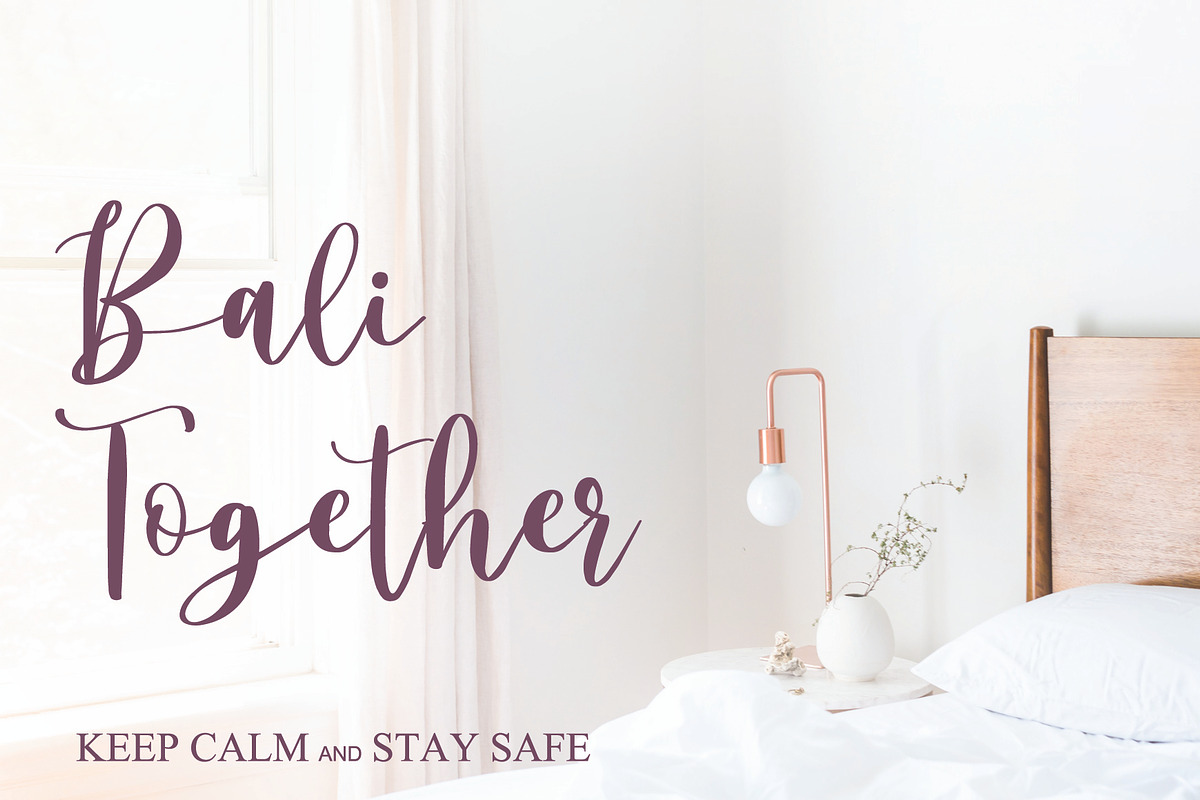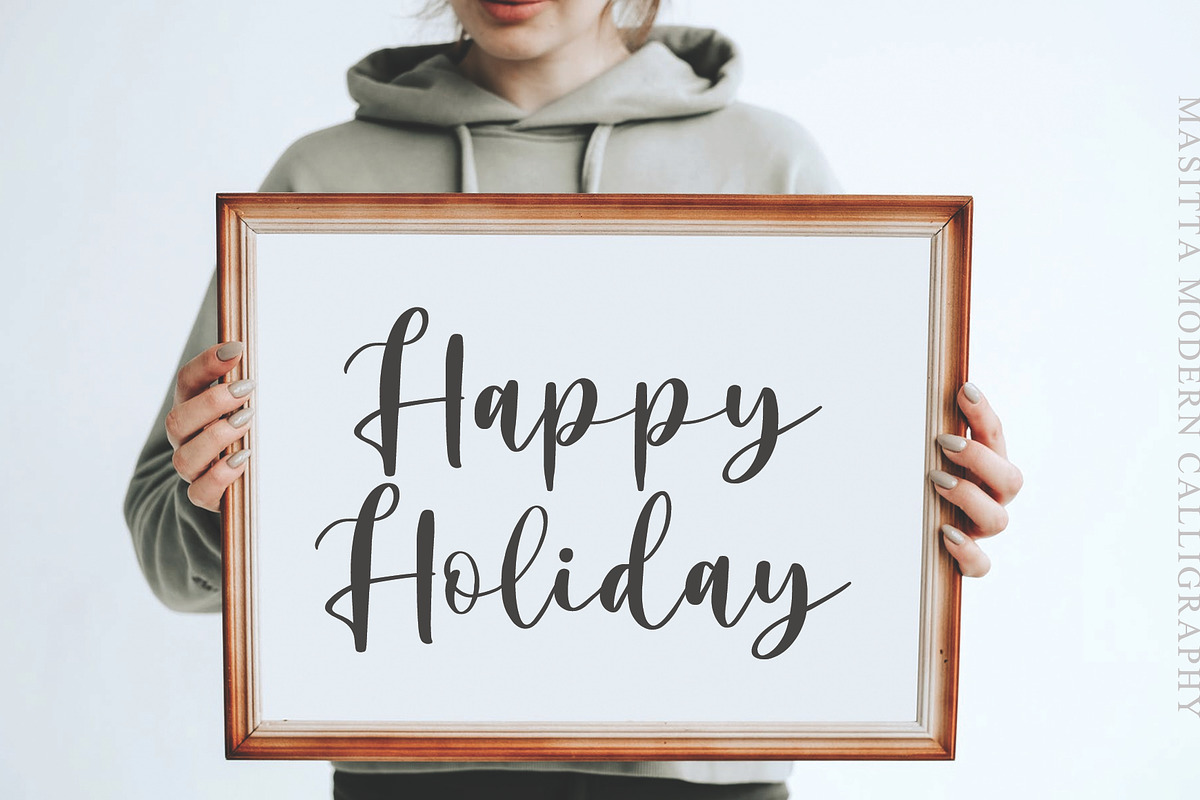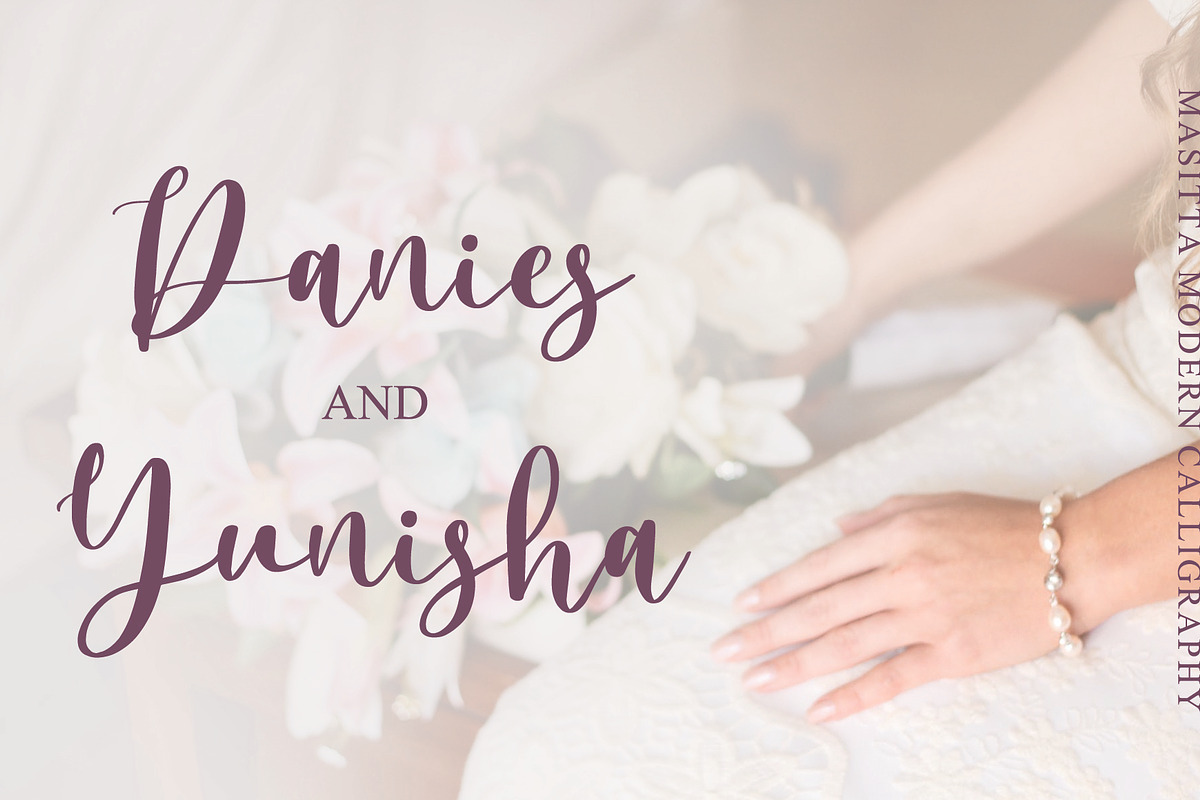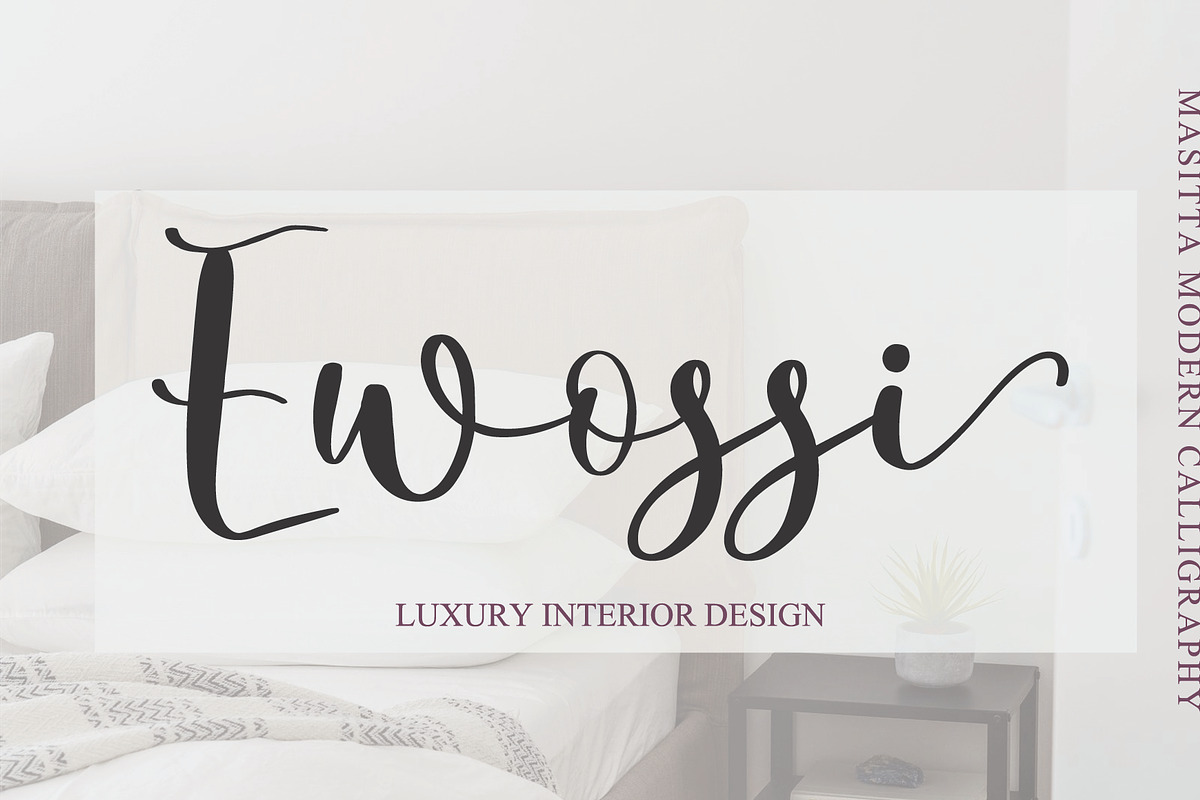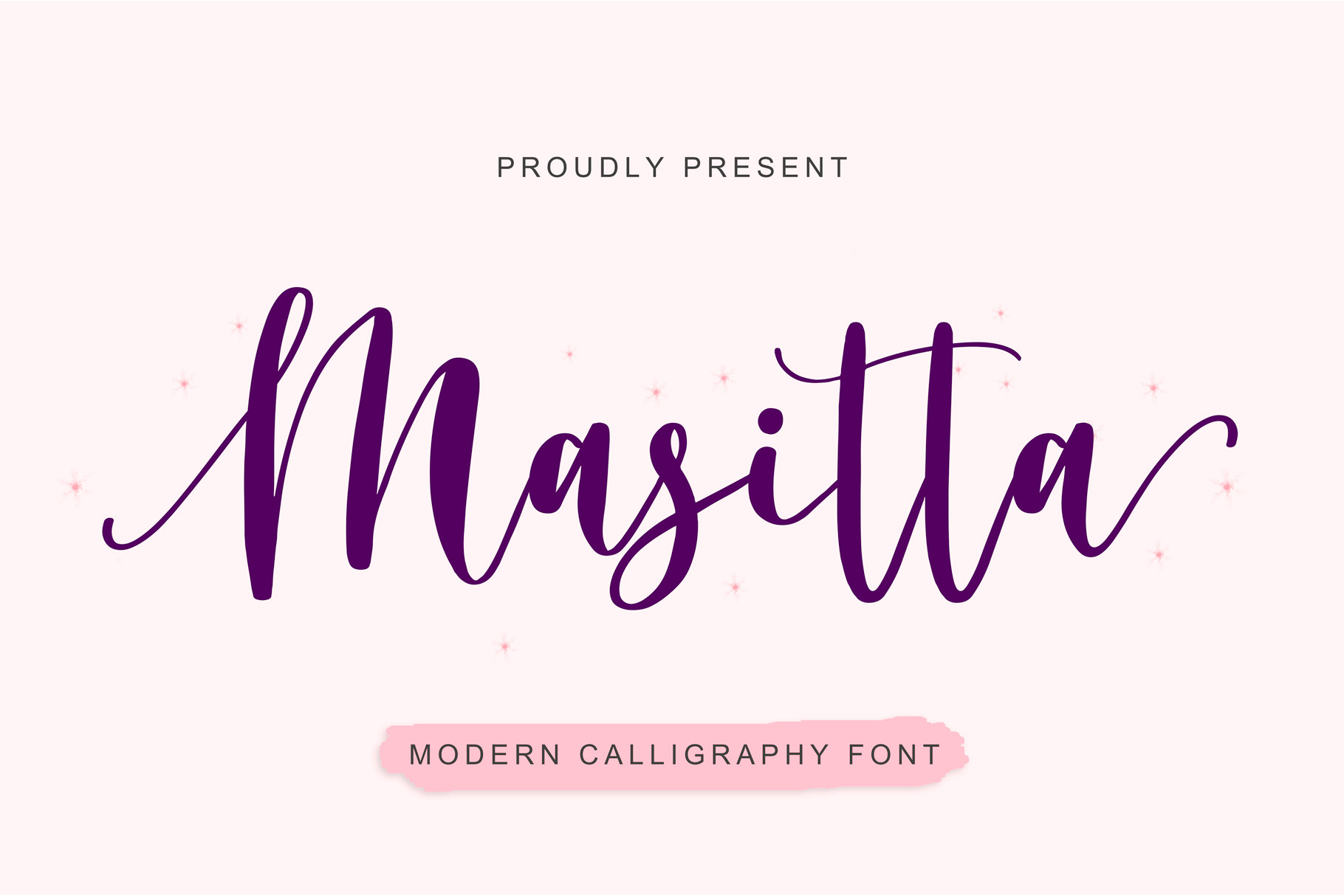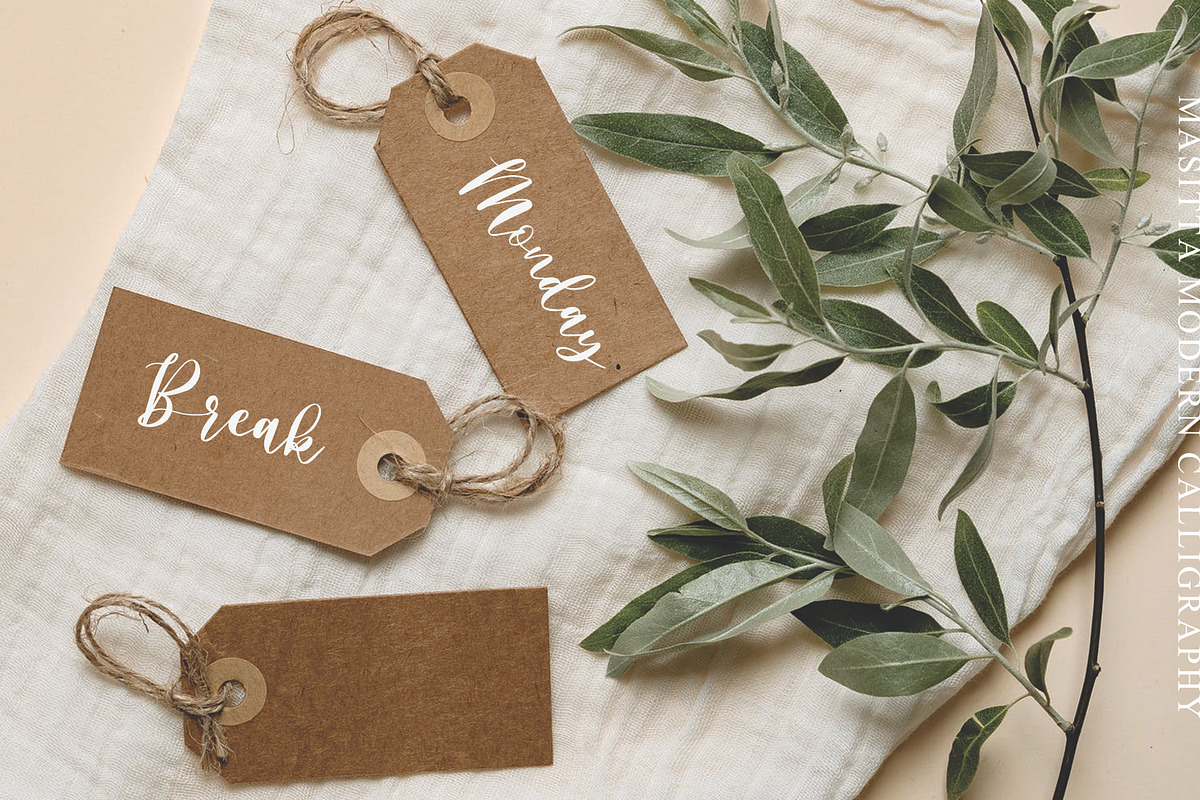
Masitta | Calligraphy Font
Masitta Script, an elegant modern calligraphy font that exudes elegance, gorgeous wedding calligraphy and minimal branding designs are trending.
Masitta is equipped with lowercase and uppercase letters, punctuation marks, alternative letters, numbers and multilingual.